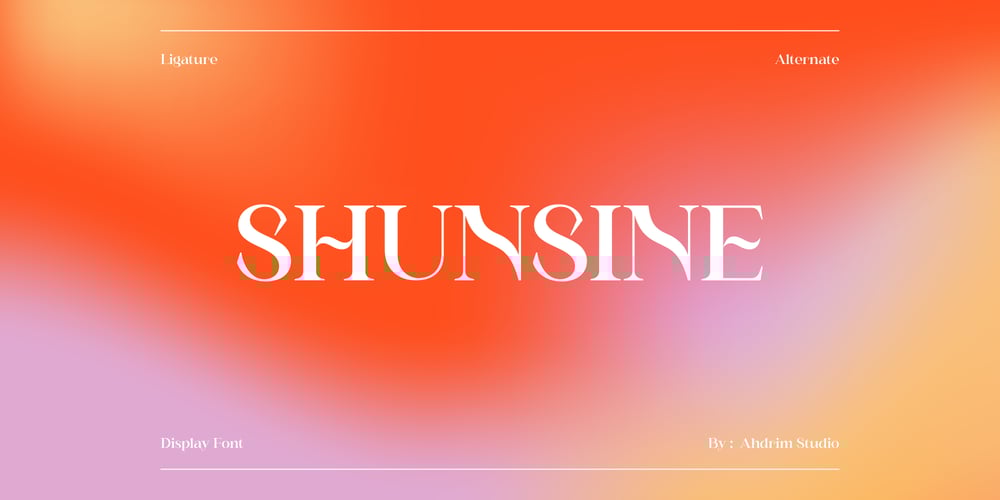
Shunsine
Shunsine font
Shunsine Font Family was designed by Mirdhatillah and published by Portograph Studio. Shunsine contains 1 styles and family package options. Shunsine is a distinct and elegant display serif font. Its stylish alternates and ligatures make this font the perfect match for any project.